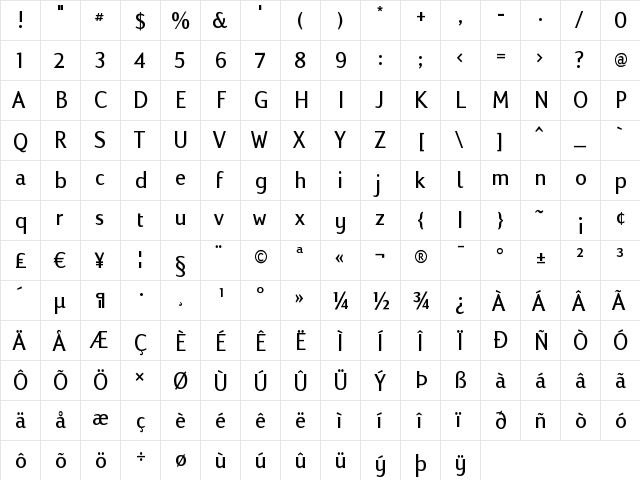
Fargo Rg DaMa Regular
| Foundry | Dalton Maag Ltd. |
| Designer | Dalton Maag Ltd. |
Design Context for Fargo Rg DaMa Typeface
Fargo Rg DaMa is a composed and adaptable typeface that performs quietly and consistently across a wide range of design contexts.